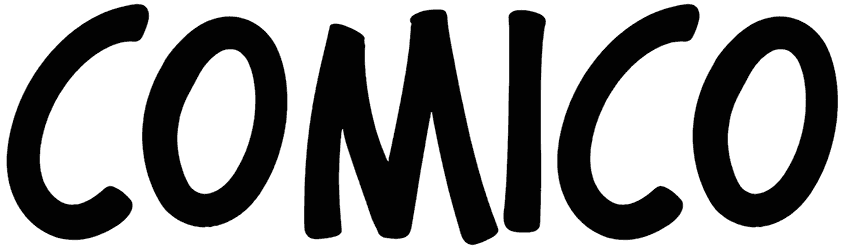
Comico Font
If you’re looking for a funny font for writing comic books and designing children’s book covers or you want to write the prints on clothes with a special font, Comico is for you. This bold font is very cute and informal,…
If you’re looking for a funny font for writing comic books and designing children’s book covers or you want to write the prints on clothes with a special font, Comico is for you. This bold font is very cute and informal, which is hand-drawn and is in the category of doodle fonts. Comico does not include lowercase letters.